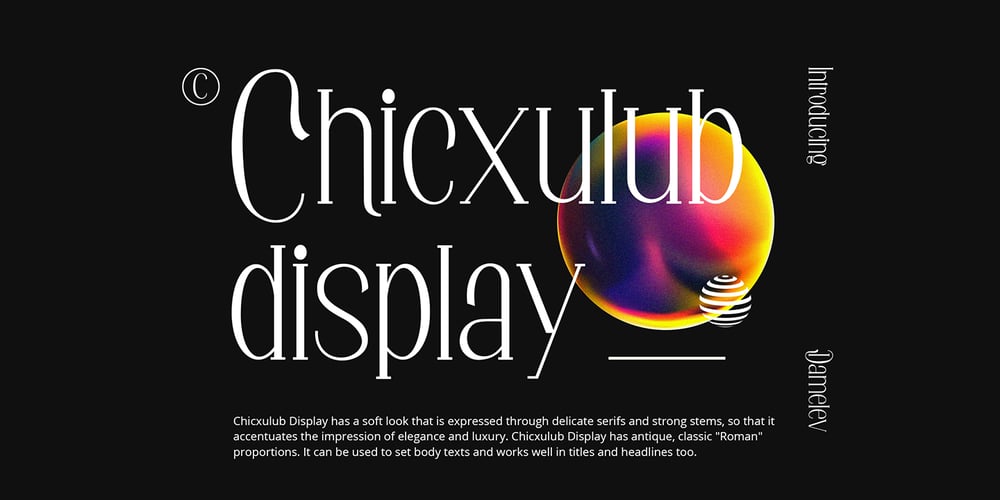
Chicxulub
Chicxulub font
Chicxulub Font Family was designed by Tanzil Adduha and published by Tanziladd. Chicxulub contains 1 styles and family package options. Chicxulub Display has a soft look that is expressed through delicate serifs and strong stems, so that it accentuates the impression of elegance and luxury. Chicxulub Display has antique, classic “Roman” proportions. It can be used to set body texts and works well in titles and headlines too.Chicxulub Display has pretty much alternatives glyphs choice in the pack and support multilingual.It works perfectly for creative project such as logo, T-shirt / apparel, badge, invitation, packaging,headline, poster, magazine, greeting card, and wedding invitation. You can access the open type features and multilingual on mostly Adobe programs, such as Adobe Indesign, Adobe Illustrator, Adobe photoshop etc.